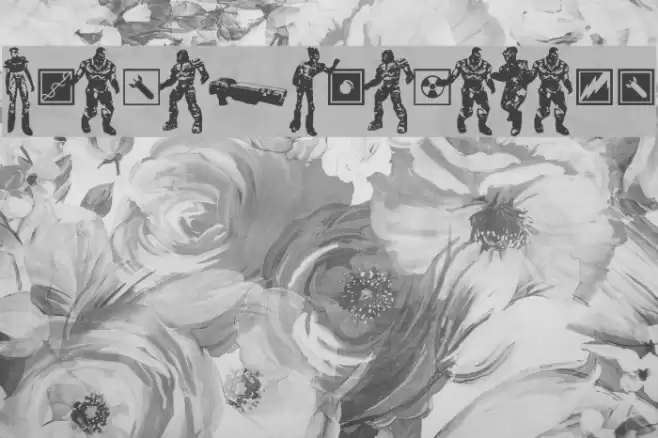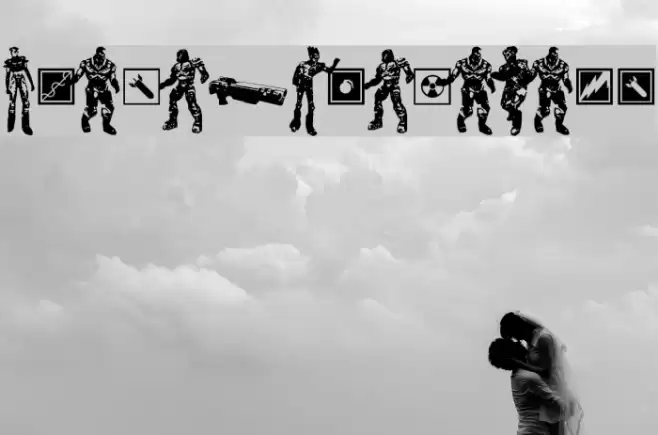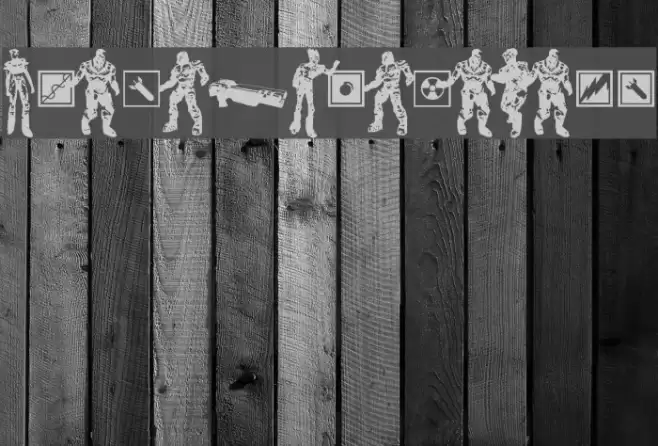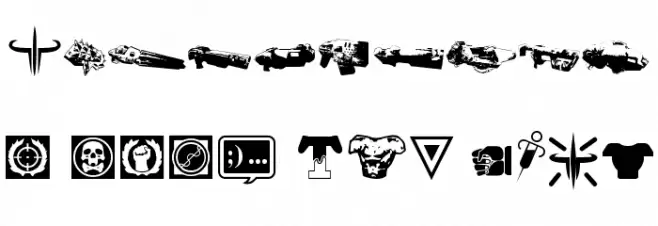
Quake3ArenaBats Font
Quake3ArenaBats Description
A decorative dingbat font featuring silhouettes of characters, weapons, icons, and symbols inspired by a first-person shooter video game. The glyphs are highly detailed, with a gritty, high-contrast black-and-white style, and include both humanoid figures and various game-related icons.
A detailed, game-themed dingbat font with character and weapon silhouettes from Uncategorized fonts.
- Proposed Projects: Video game fan art, posters, themed party invitations, custom apparel, digital overlays, and gaming event materials.
- Overall Style: Decorative, Gritty, Thematic
- Use Case: Logos, Posters, Themed Graphics, Game-related Designs